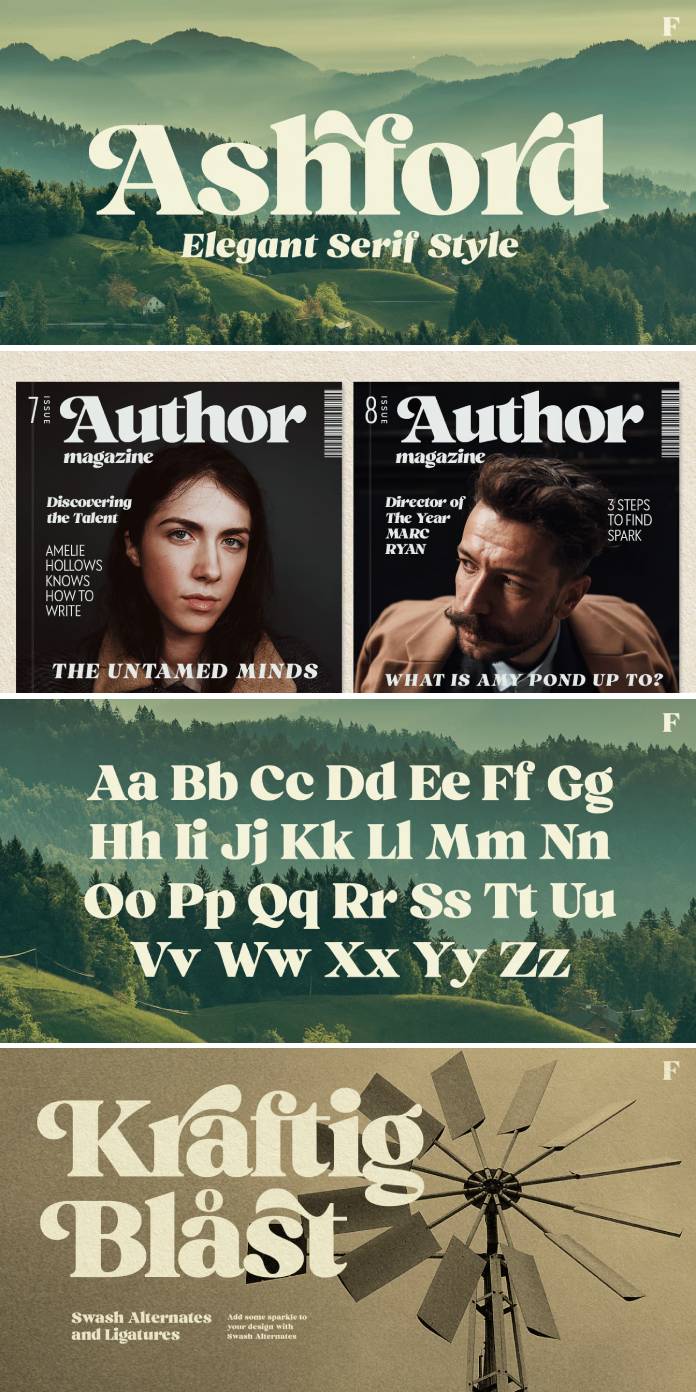
Say hello to the Ashford typeface and its timeless elegance in typography.
In typography, where fonts speak volumes, the Ashford typeface by Fenotype emerges as a charismatic ambassador of timeless charm and sophistication. Crafted by the talented Emil Karl Bertell, Ashford embodies the essence of bold serifs and striking italics, weaving a narrative of elegance and savoir-faire in every character stroke.
A Dance of Boldness and Elegance
At first glance, Ashford captivates with its bold serifs, commanding attention in headlines, posters, and logotypes. Its sturdy yet graceful demeanor makes it a natural choice for projects seeking to convey a message of style and inner wisdom. Each letter bears the mark of deliberate design, exuding confidence and refined aesthetics.
Unveiling Artistry Through OpenType Features
But Ashford isn’t merely a static typeface; it’s a canvas of possibilities enriched by OpenType features. The inclusion of Keep Standard Ligatures and Contextual Alternates serves as a guardian against clashes between characters, ensuring seamless readability. However, it’s the myriad of over 50 alternate characters in both styles that truly elevate Ashford’s allure.
Embracing Versatility with Alternates
Diving deeper into Ashford’s repertoire, one discovers a treasure trove of alternates. From graceful swashes to stylistic and titling alternates, this font empowers designers to infuse their creations with distinct personality and flair. The swashes embellish with a touch of flair, while the stylistic and titling alternates offer a nuanced versatility, adapting to diverse design intents.
Crafting Timeless Visual Stories
The beauty of Ashford lies not only in its aesthetic appeal but in its ability to seamlessly intertwine with the designer’s narrative. Whether adorning a luxury brand’s logo or gracing the headlines of a sophisticated editorial, this typeface serves as a conduit for conveying messages steeped in refinement and sophistication.
Conclusion: A Typeface That Echoes Elegance
In the ever-evolving world of design, where trends come and go, Ashford stands as a beacon of enduring elegance. Its bold serifs, coupled with its dynamic range of alternates and OpenType features, offer designers a versatile palette to craft visual stories that resonate with timeless charm and sophistication.
Emil Karl Bertell’s creation, the Ashford typeface, isn’t just a font; it’s an invitation to weave stories of style and inner knowledge, ensuring that every design bearing its strokes speaks volumes about elegance and sophistication.